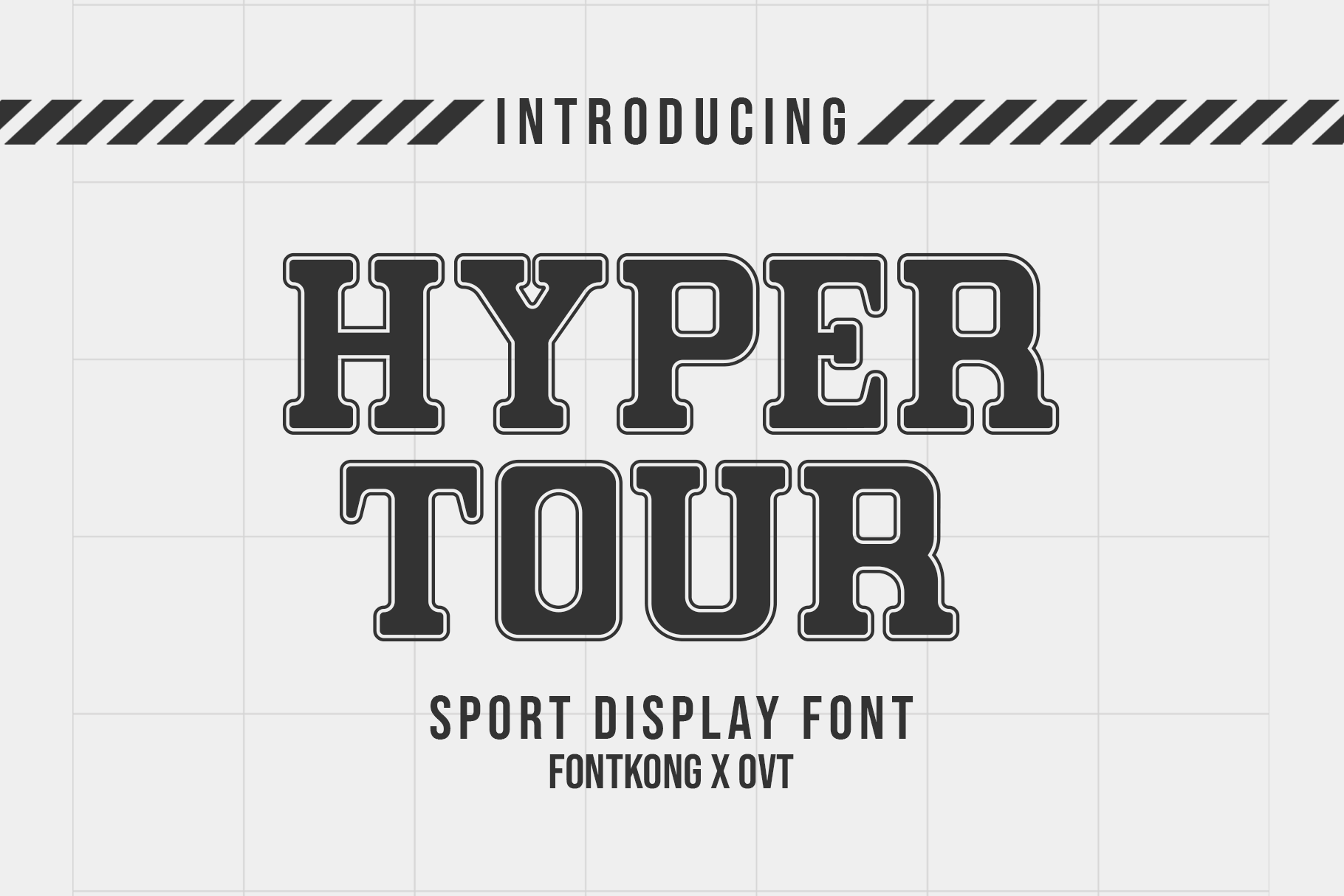
Hyper Tour - A Sport Display Font
Hyper Tour is an energetic and dynamic sport display font designed to bring a bold and athletic feel to your design projects. With its strong lines and impactful letterforms, Hyper Tour is perfect for sports event posters, team logos, athletic apparel, and dynamic branding. This font captures the spirit of competition and movement, adding a sense of excitement and power to your work.
Crafted with precision, Hyper Tour features robust characters that offer excellent readability and visual impact. Its bold design makes it ideal for headlines and display text, providing a striking and memorable presence. The font’s versatility allows it to adapt seamlessly to various design contexts, from digital screens to printed materials, making it a valuable asset for any designer aiming to create powerful and energetic visuals.
Embrace the energy of sports with Hyper Tour, a font that brings the intensity and passion of athleticism to life. Its dynamic style and adaptability make it an essential addition to any designer’s toolkit for crafting bold and captivating projects. Enhance your designs with Hyper Tour and let the athletic spirit shine!